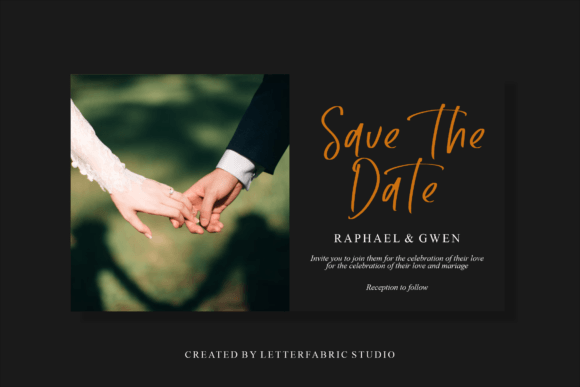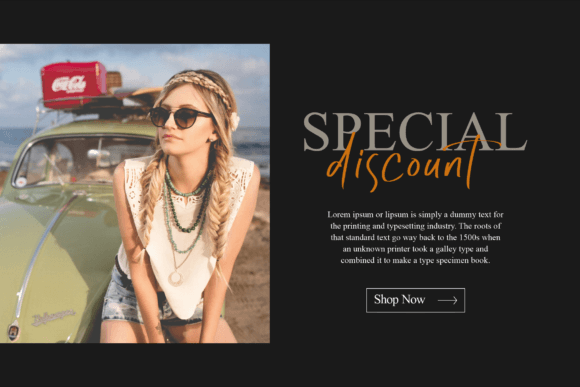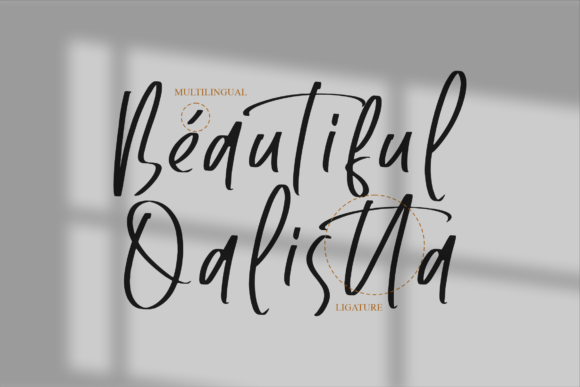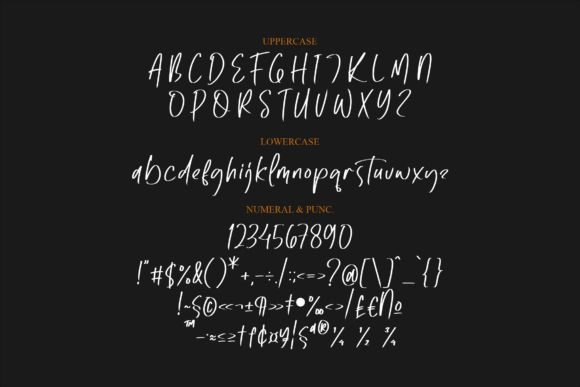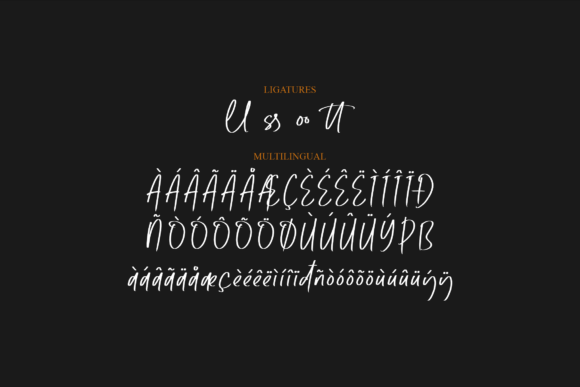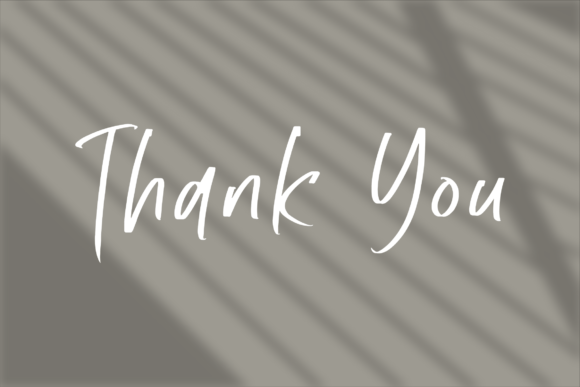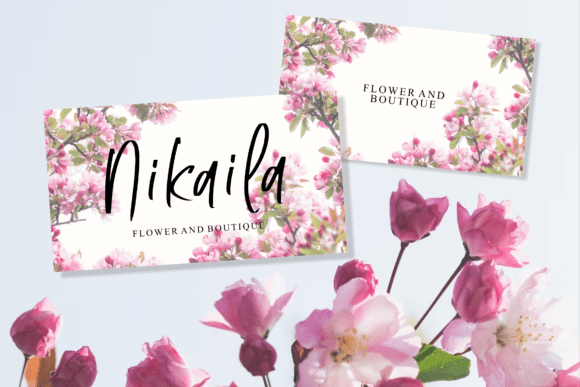
About Qalistta Font
“Qalistta” is a beautiful handwritten font that brings an elegant and script-like quality to your design projects. With its versatile nature, it is well-suited for a variety of creative endeavors, making it a valuable addition to your font library.
The flowing and graceful characters of “Qalistta” make it perfect for logos, branding projects, and homeware designs where a touch of sophistication is desired. Additionally, its suitability for product packaging, quotes, posters, T-shirts, book covers, name cards, invitation cards, greeting cards, labels, photography, watermark, and special events expands its usability across a wide range of applications.
The script taste of “Qalistta” adds a personal and stylish touch to your designs, making them stand out with a unique charm. Whether you’re working on a professional branding project or a more casual T-shirt design, this font provides the flexibility to adapt to different contexts.
In summary, “Qalistta” is not just a font; it’s a versatile tool that can elevate the aesthetic of your projects. Its beautiful script style makes it suitable for a diverse range of design applications, allowing you to bring a touch of elegance to various creative endeavors.